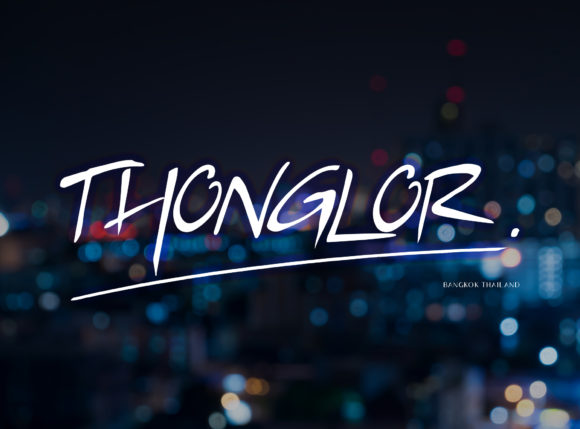
Introducing Thonglor Font, an exquisite handwritten font that will ignite your creativity and elevate your designs!
Thonglor captures the essence of contemporary calligraphy, effortlessly blending classic elegance with modern flair. Its intricate lines and graceful curves add a touch of sophistication and intrigue to any project.
Immerse yourself in the beauty of this script font, meticulously crafted for captivating displays and unforgettable impressions. Its versatility shines through, whether you're creating stunning logos, eye-catching headlines, or captivating social media posts.
With Thonglor Font, your words will dance on the page, leaving a lasting impact that captivates and inspires. Unleash your imagination and let your designs soar to new heights with this captivating font.
Don't settle for ordinary typefaces. Embrace the extraordinary with Thonglor Font, where artistry and functionality intertwine to create a masterpiece that will transform your creative endeavors.